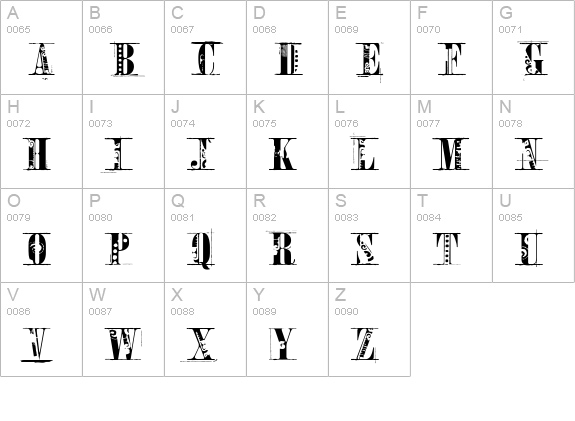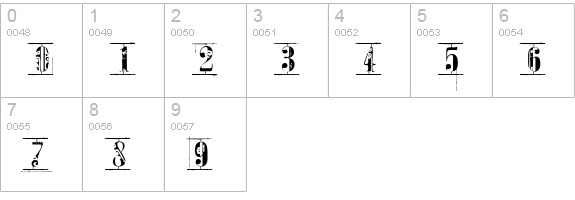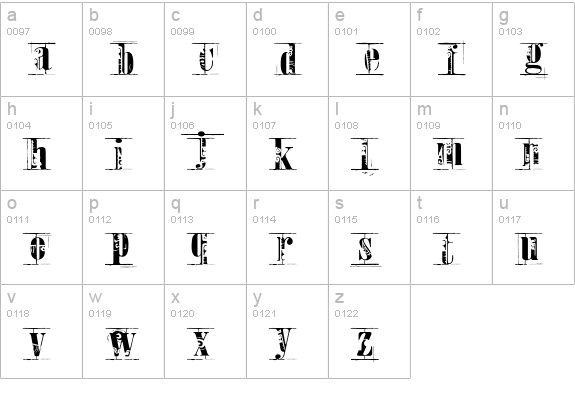
Toreador Font Details
Toreador font is a stunning display typeface that exudes elegance and sophistication. With its intricate curves and graceful flourishes, this font captures the essence of timeless beauty. It is the perfect choice for projects that demand a touch of class and refinement. The Toreador font is freely available to download at FontsMarket.com. This means that you can easily access this remarkable font without any cost. Whether you are a designer looking to add a touch of sophistication to your creations or a content creator searching for a font that will captivate your audience, Toreador font is the ideal solution. With its versatile nature, Toreador font can be used in a variety of design projects. From logos and branding materials to invitations and headlines, this font will instantly elevate your designs to the next level. Its delicate curves and attention to detail make it a truly unique and visually appealing typeface. What sets Toreador font apart is not just its stunning design, but also its functionality. This font is highly legible, ensuring that your message comes across clearly and effectively. Its timeless appeal makes it suitable for a wide range of applications, from traditional to modern designs. Downloading Toreador font from FontsMarket.com is a breeze. Simply visit the website, search for Toreador font, and click on the download button. Once you have the font at your fingertips, the possibilities are endless. Let your creativity run wild and watch as your designs come to life with the help of this remarkable font. In conclusion, Toreador font is a must-have for any designer or content creator in search of a font that effortlessly combines elegance and functionality. Its breathtaking design and freely available download option at FontsMarket.com make it a standout choice. Download Toreador font today and unlock a world of design possibilities.